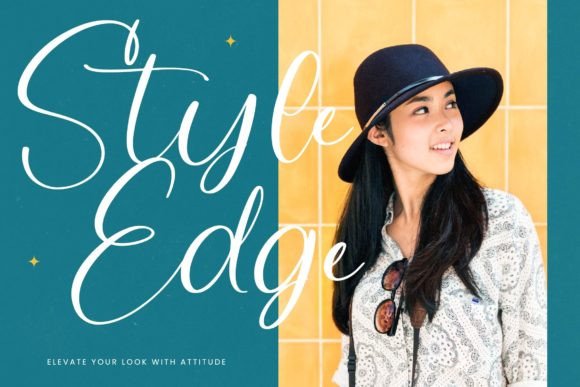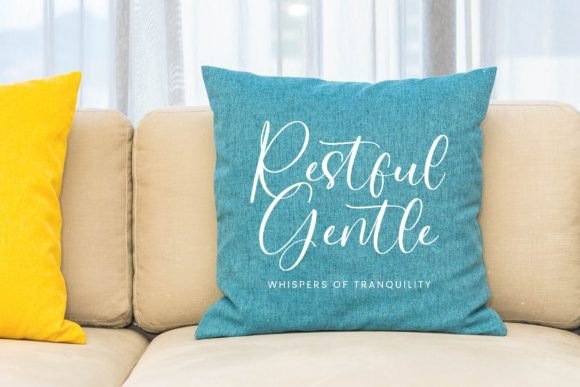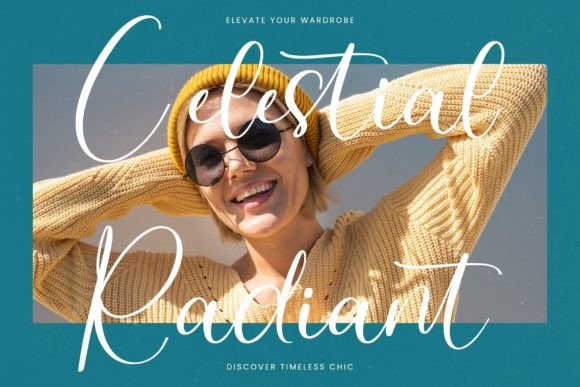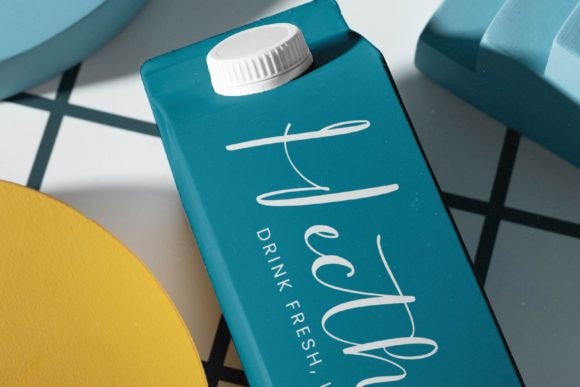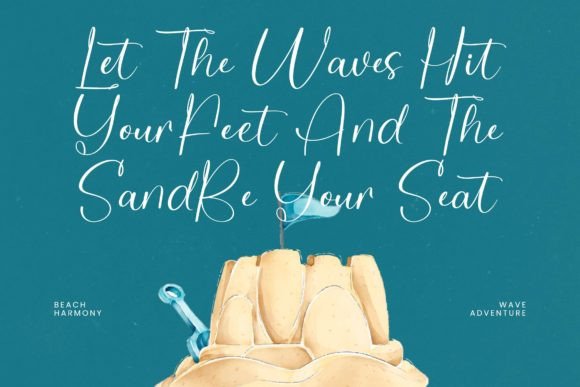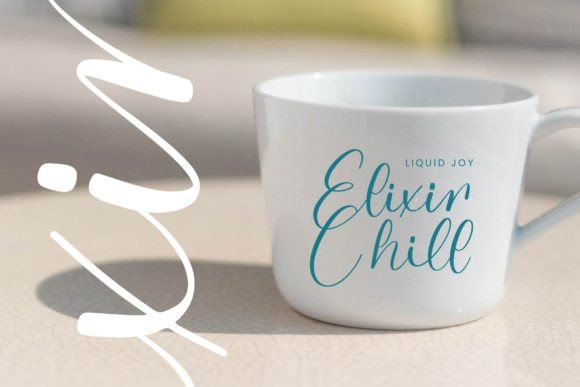
Introducing Delight Splash Font: The Perfect Addition to Your Design Projects
Are you looking for a font that adds a personal touch to your design projects? Look no further than Delight Splash, a modern handwritten font with a fresh and playful style. Its smooth, flowing lines and casual look make it perfect for a wide range of applications, from invitations and social media posts to blog headers and more.
The Characteristics of Delight Splash Font
Delight Splash is a unique and creative font that stands out from the crowd. Its handwritten style gives it a friendly and approachable feel, making it perfect for designers and crafters who want to add a personal touch to their work. The font features:
- Smooth, flowing lines that give it a natural and effortless look
- A casual and playful style that’s perfect for creative projects
- A wide range of characters, including uppercase and lowercase letters, numbers, and punctuation marks
- A modern and fresh feel that’s perfect for contemporary designs
Uses for Delight Splash Font
Delight Splash is a versatile font that can be used in a wide range of applications. Here are some ideas to get you started:
- Invitations: Use Delight Splash to create beautiful and unique invitations for weddings, birthday parties, and other special occasions.
- Social Media Posts: Add a personal touch to your social media posts with Delight Splash. It’s perfect for creating eye-catching graphics and engaging with your audience.
- Blog Headers: Use Delight Splash to create stunning blog headers that reflect the personality and tone of your blog.
- Branding: Delight Splash is perfect for creating custom branding materials, such as logos, business cards, and letterheads.
- Crafting: If you’re a crafter, Delight Splash is a great font to use for your project tags, labels, and other materials.
Why Choose Delight Splash Font?
There are many fonts available that offer a similar style to Delight Splash, but here are a few reasons why it stands out from the crowd:
- Unique Style: Delight Splash has a unique and distinctive style that’s sure to make your designs stand out.
- Ease of Use: The font is easy to read and use, making it perfect for designers and crafters of all skill levels.
- Flexibility: Delight Splash can be used in a wide range of applications, from digital designs to print materials.
- High-Quality: The font is high-quality and carefully crafted to ensure that it looks great in any design.
Tips for Using Delight Splash Font
Here are a few tips for using Delight Splash to get the most out of this amazing font:
- Experiment with Colors: Delight Splash looks great in a wide range of colors, so don’t be afraid to experiment and find the perfect color scheme for your design.
- Pair it with Other Fonts: Delight Splash can be paired with other fonts to create a unique and interesting look. Try pairing it with a bold font for a striking contrast.
- Use it for Headings: Delight Splash is perfect for headings and titles, so use it to add a personal touch to your designs.
- Make it Your Own: Don’t be afraid to get creative and make Delight Splash your own. Add your own personal touches and style to make your designs truly unique.
Delight Splash is a modern handwritten font that’s perfect for adding a personal touch to your design projects. Its smooth, flowing lines and casual look make it perfect for a wide range of applications, from invitations and social media posts to blog headers and more. With its unique style, ease of use, and flexibility, Delight Splash is a great addition to any designer’s or crafter’s toolkit.